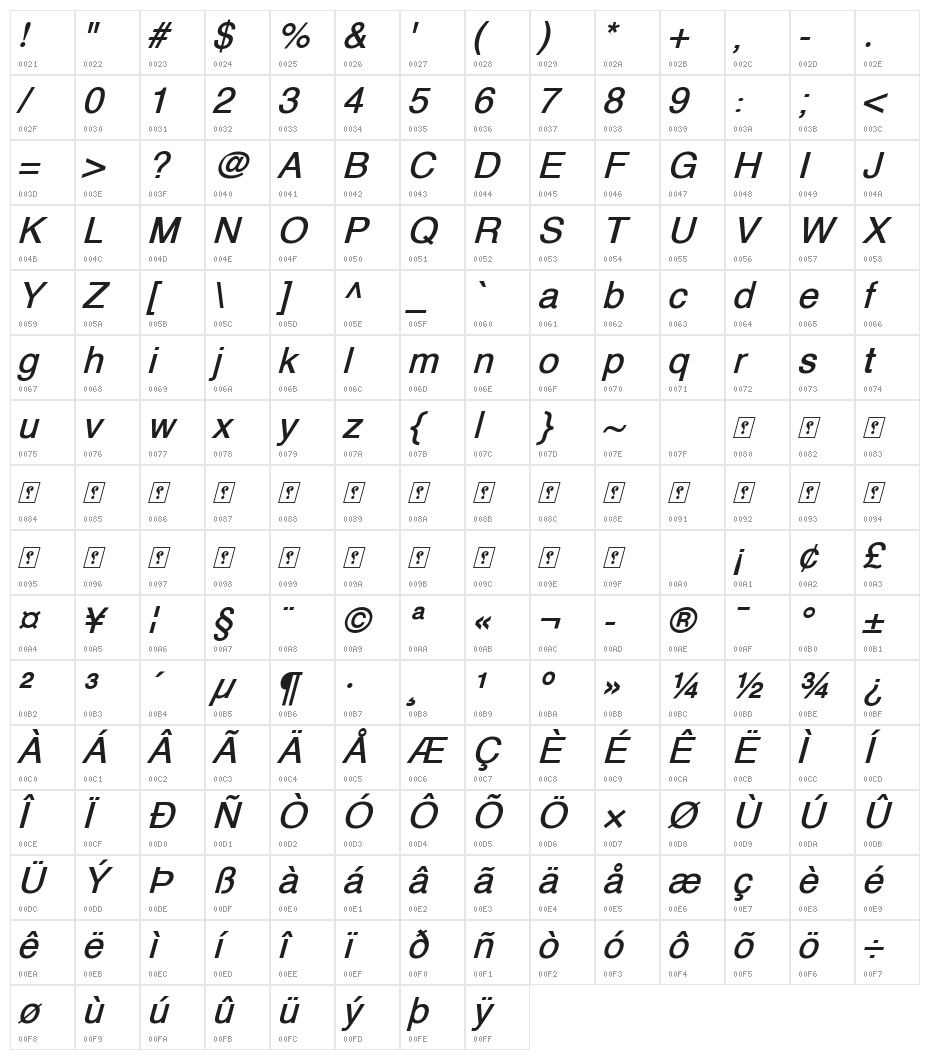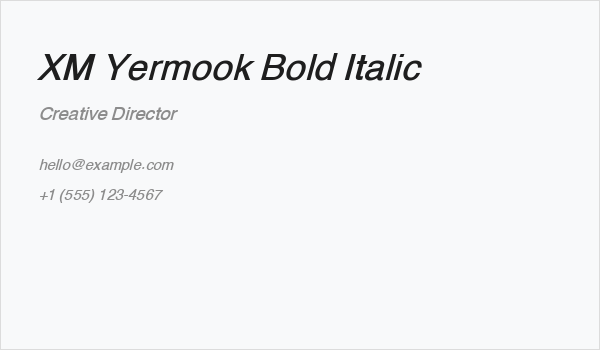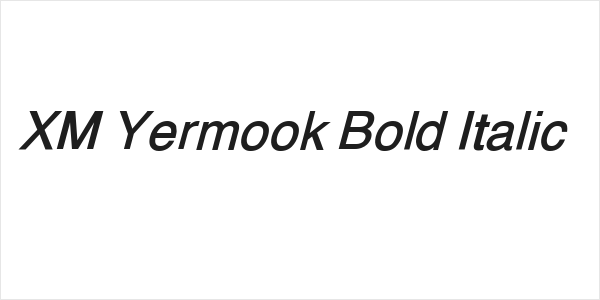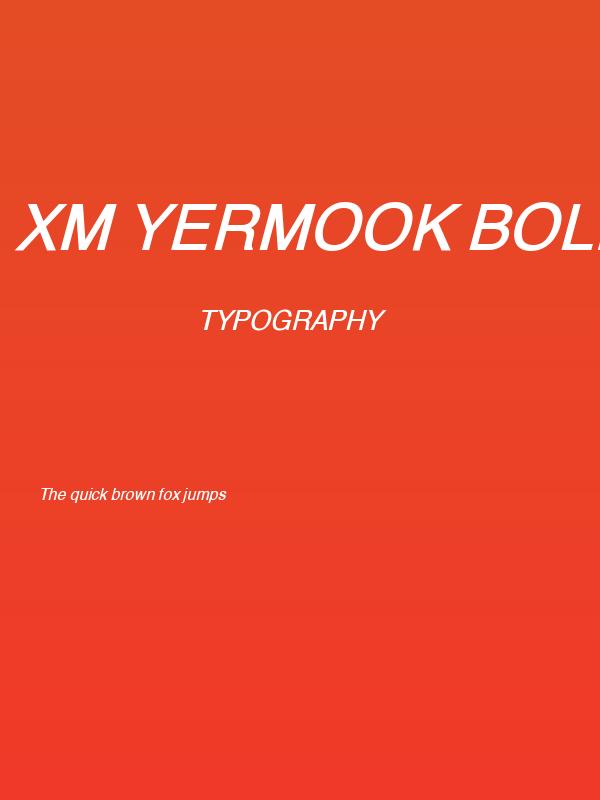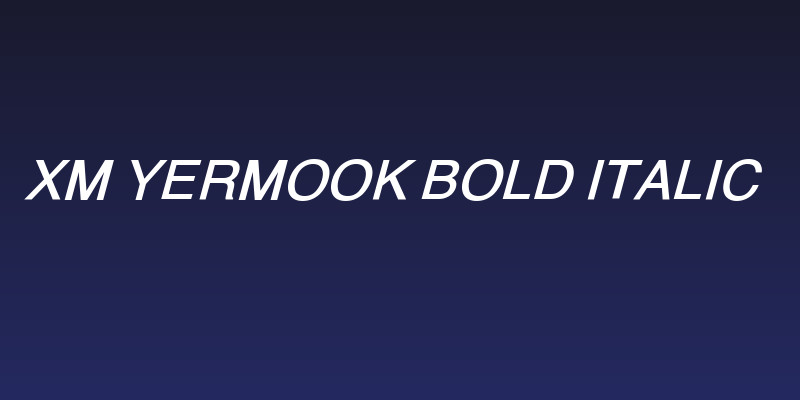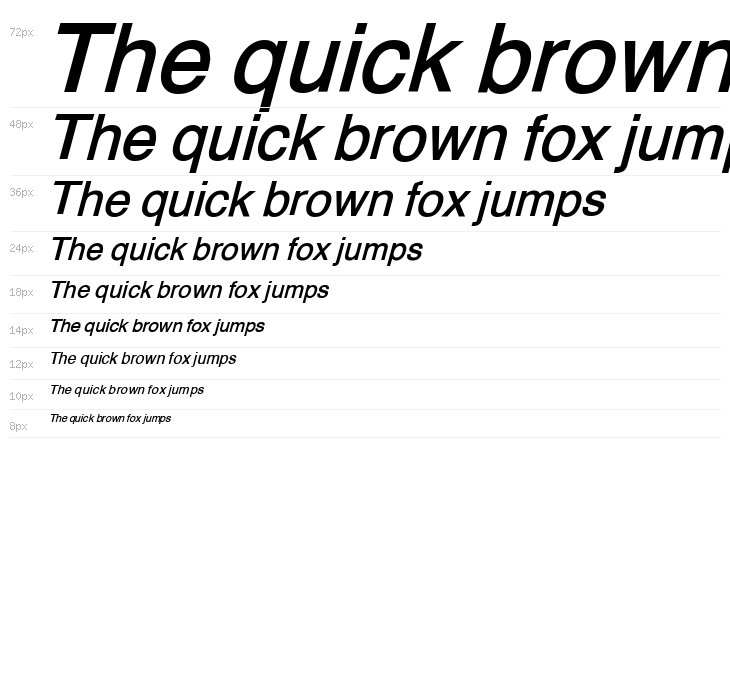
XM Yermook Bold Italic Font
XM Yermook Bold Italic Description
This font showcases a bold and italicized style, characterized by its strong and dynamic slant. The letters are well-defined with a consistent thickness, providing a robust appearance. The uppercase and lowercase letters maintain a uniformity that enhances readability, while the numerals are clear and distinct. Special characters are designed to complement the overall aesthetic, making this font versatile for various applications. Its modern and sleek design is suitable for projects that require a touch of elegance and emphasis.
| Proposed Projects | Ideal for branding, advertising, headlines, and editorial design where emphasis and style are needed. |